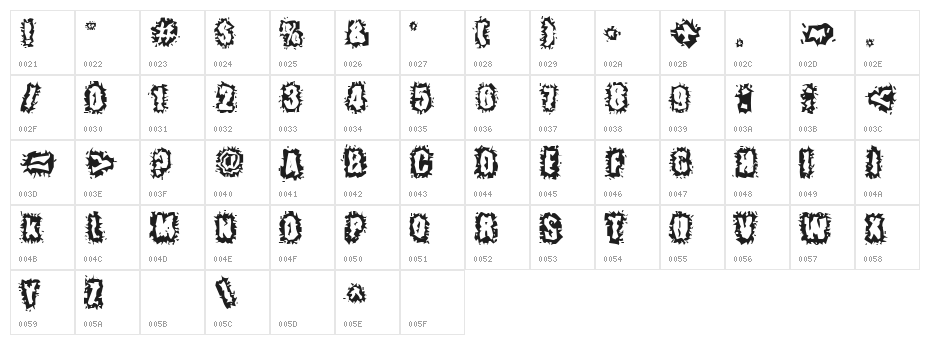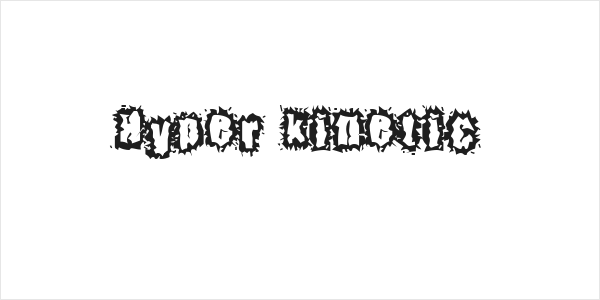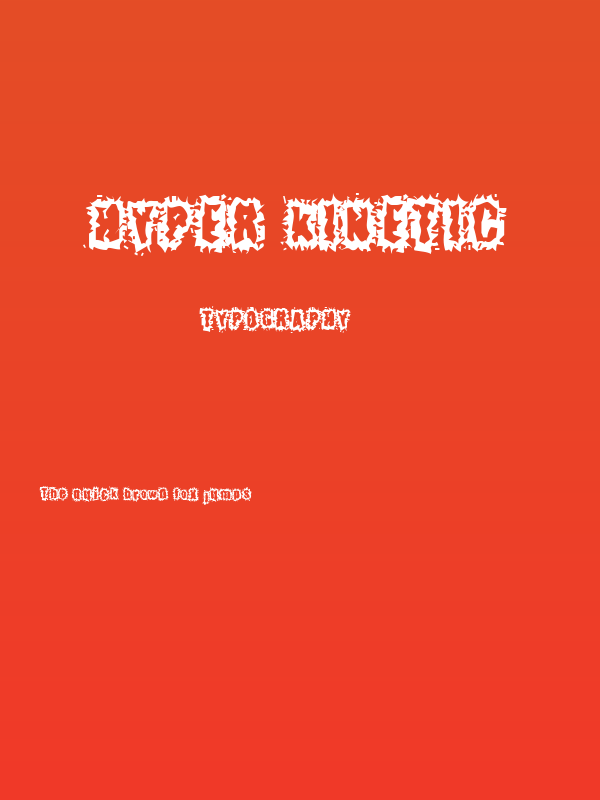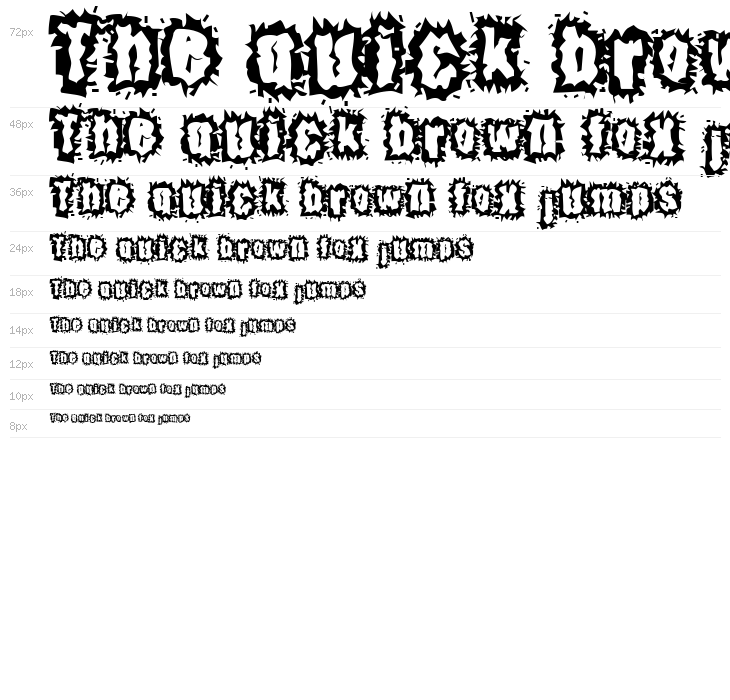
Hyper Kinetic Font
Hyper Kinetic Description
This font exudes an energetic and dynamic vibe, characterized by its jagged, explosive edges that give each character a sense of movement and intensity. The bold, thick strokes are irregular, creating a chaotic yet captivating appearance. The letters are tightly packed, enhancing the overall impact and making it ideal for attention-grabbing designs. Its unique style is reminiscent of graffiti or comic book art, making it perfect for projects that require a bold statement. The font's playful yet aggressive nature makes it suitable for creative and unconventional uses.
| Proposed Projects | Ideal for posters, album covers, video game graphics, and streetwear branding. |